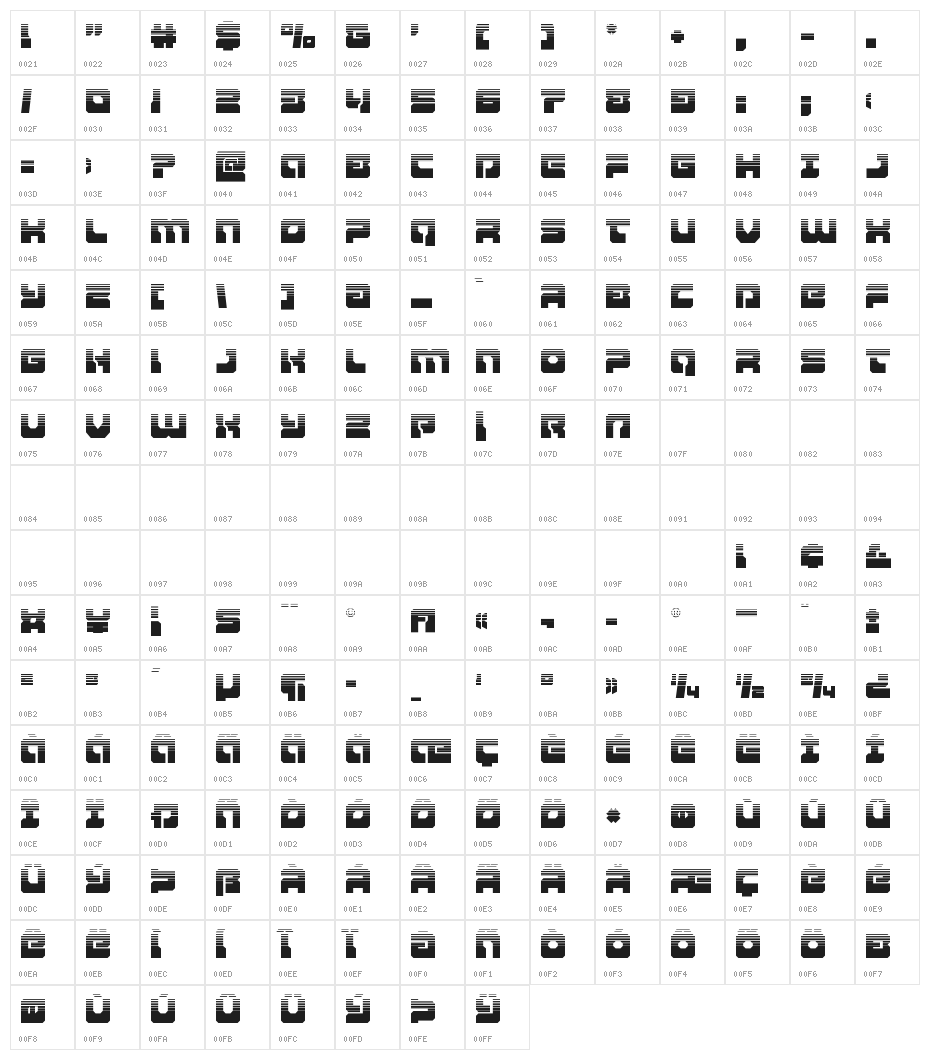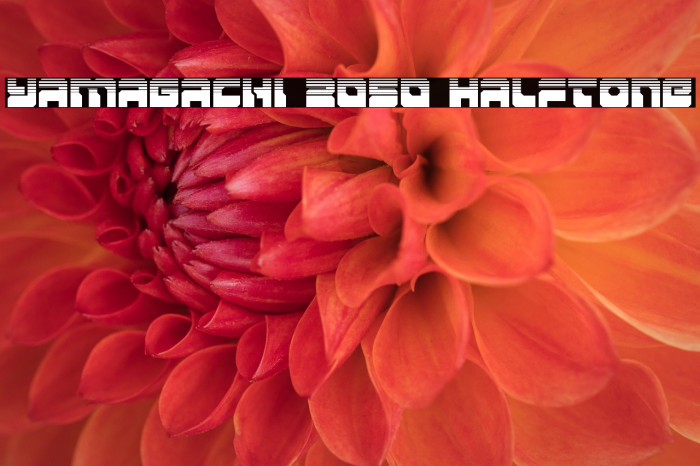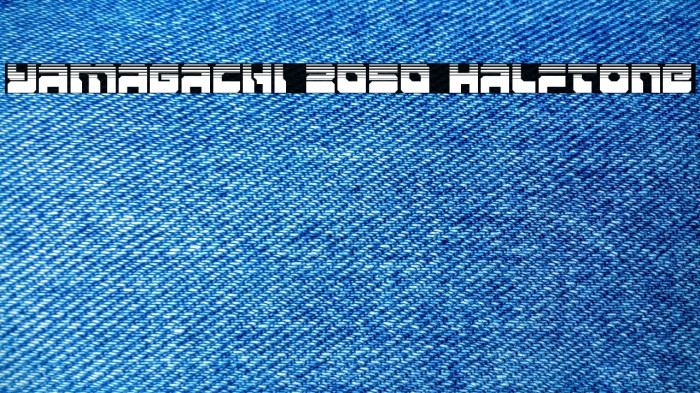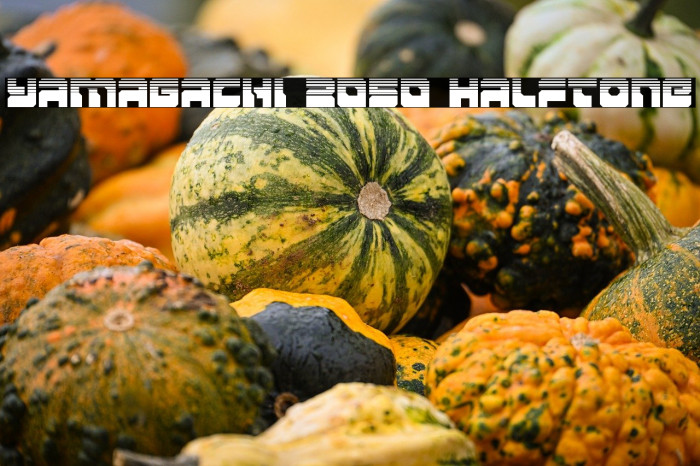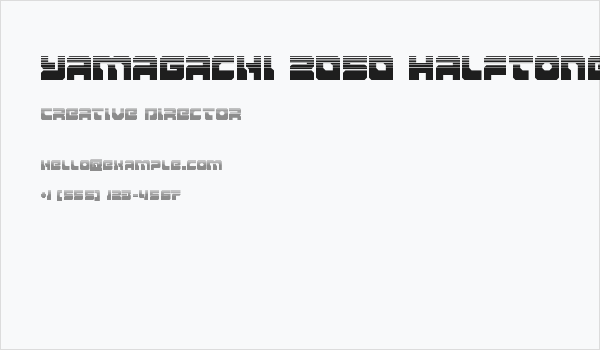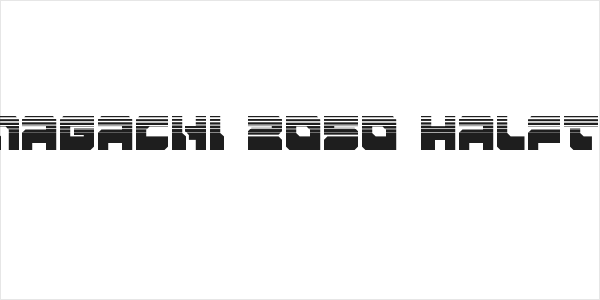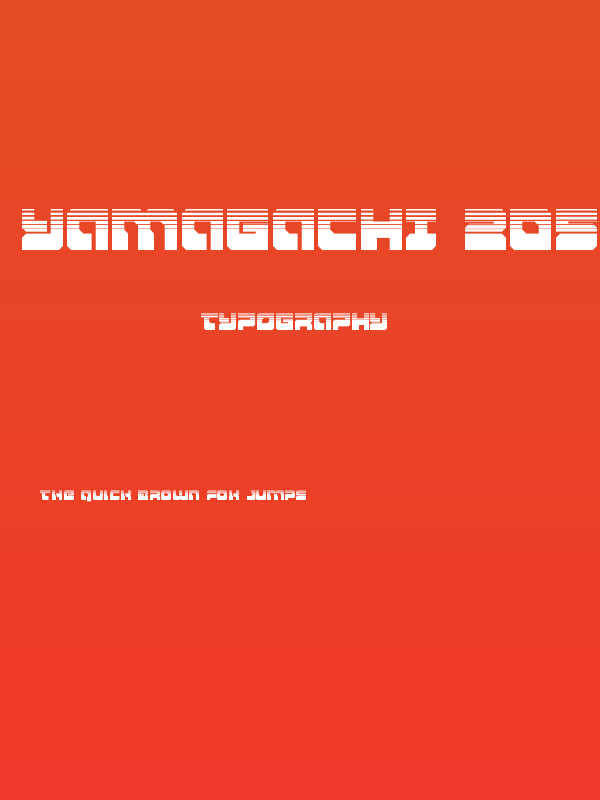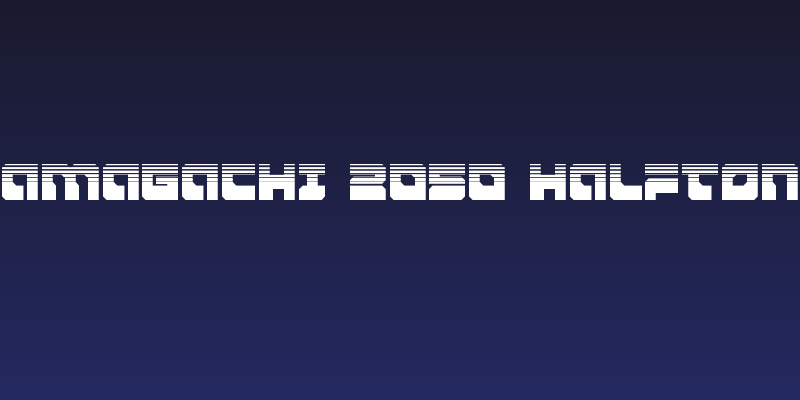
Yamagachi 2050 Halftone Font
Yamagachi 2050 Halftone Description
This font features a futuristic and bold design with a halftone effect that gives it a unique, digital appearance. The characters are constructed with a series of horizontal lines that create a sense of movement and depth. The uppercase and lowercase letters maintain a consistent style, with sharp angles and geometric shapes that enhance its modern look. The numerals and special characters follow the same design principles, ensuring uniformity across all glyphs. This font's distinct style makes it ideal for projects that require a contemporary and eye-catching typeface.
| Proposed Projects | Ideal for digital artwork, sci-fi themed projects, video game titles, and modern branding. |